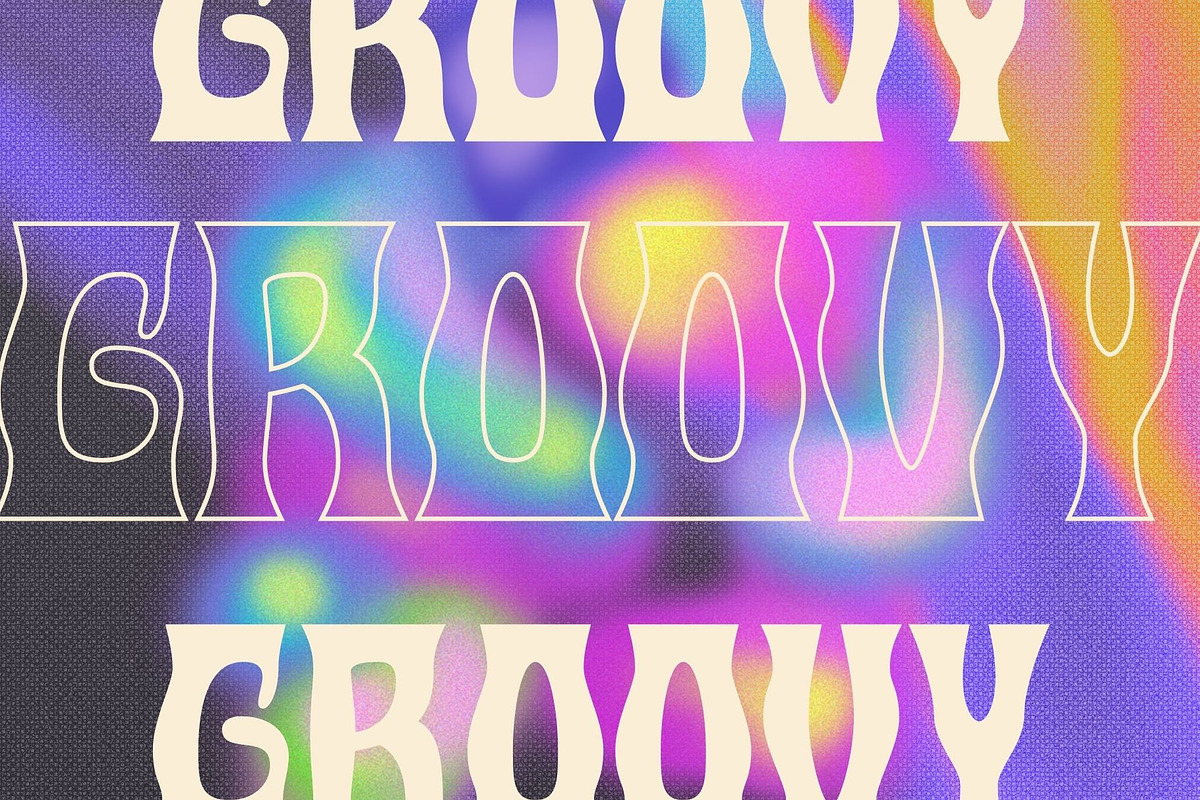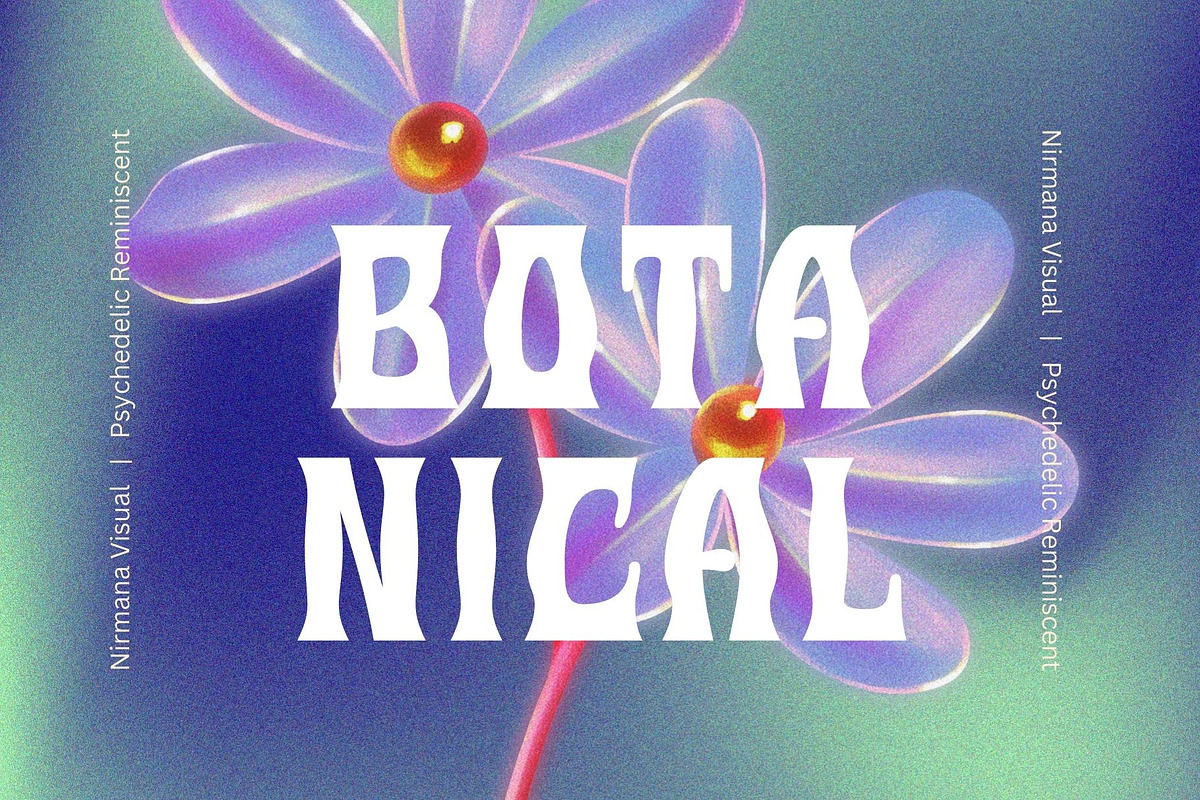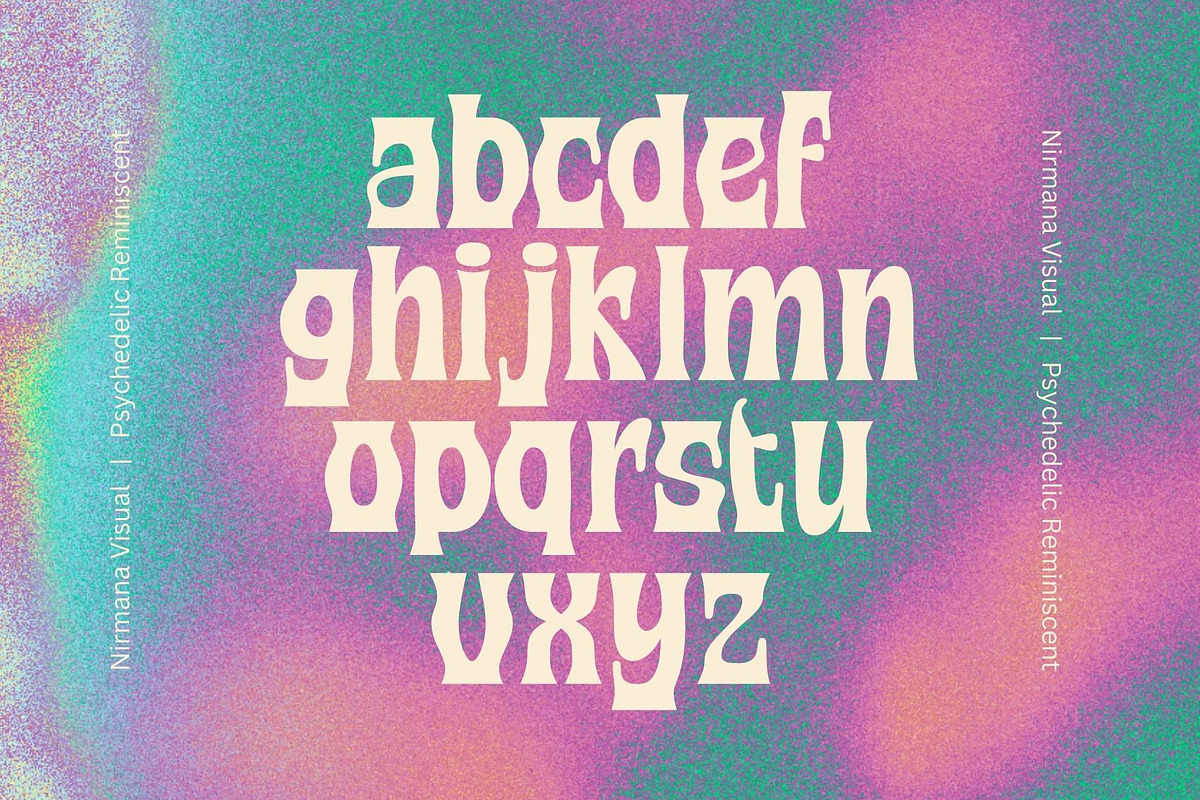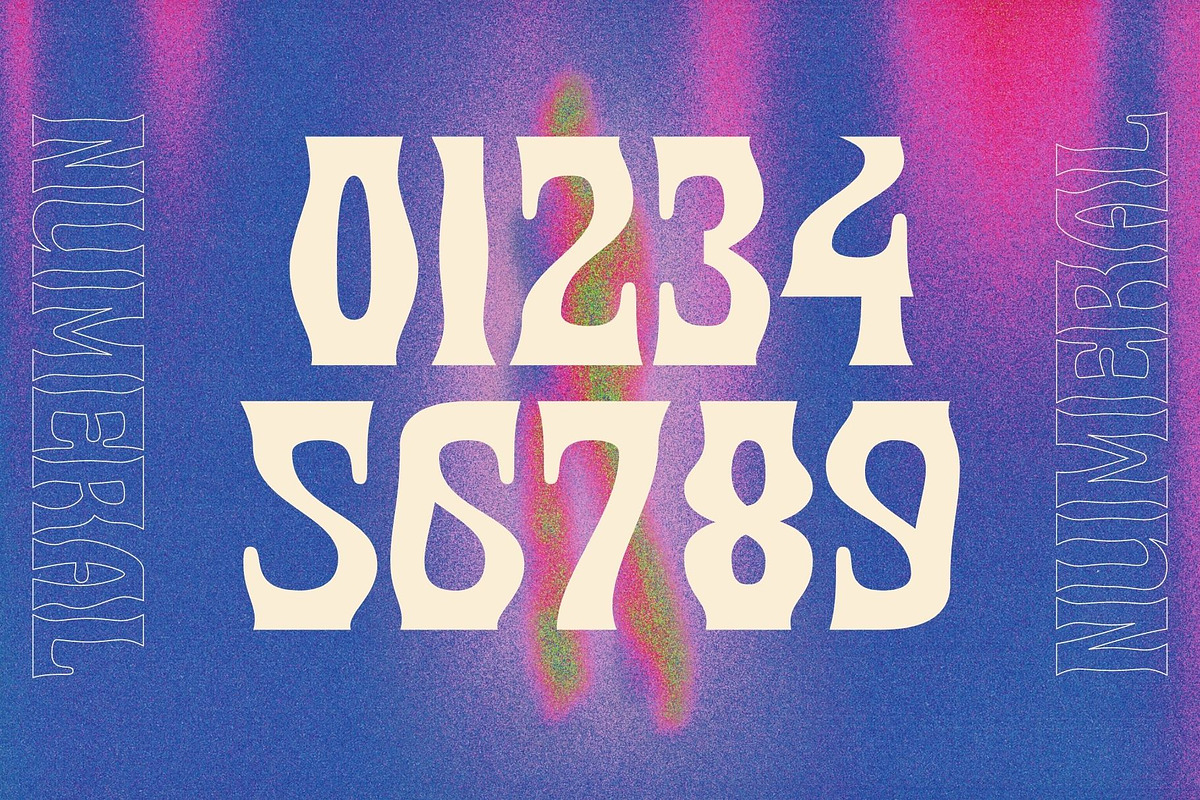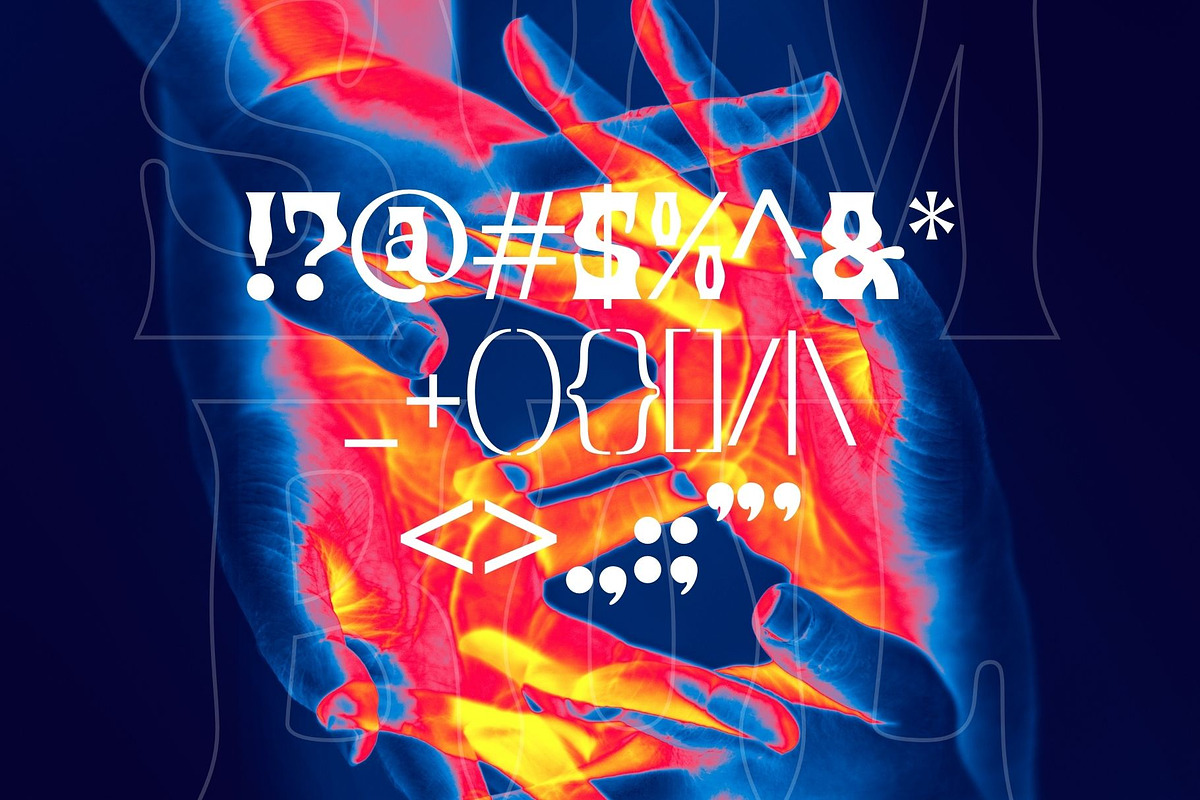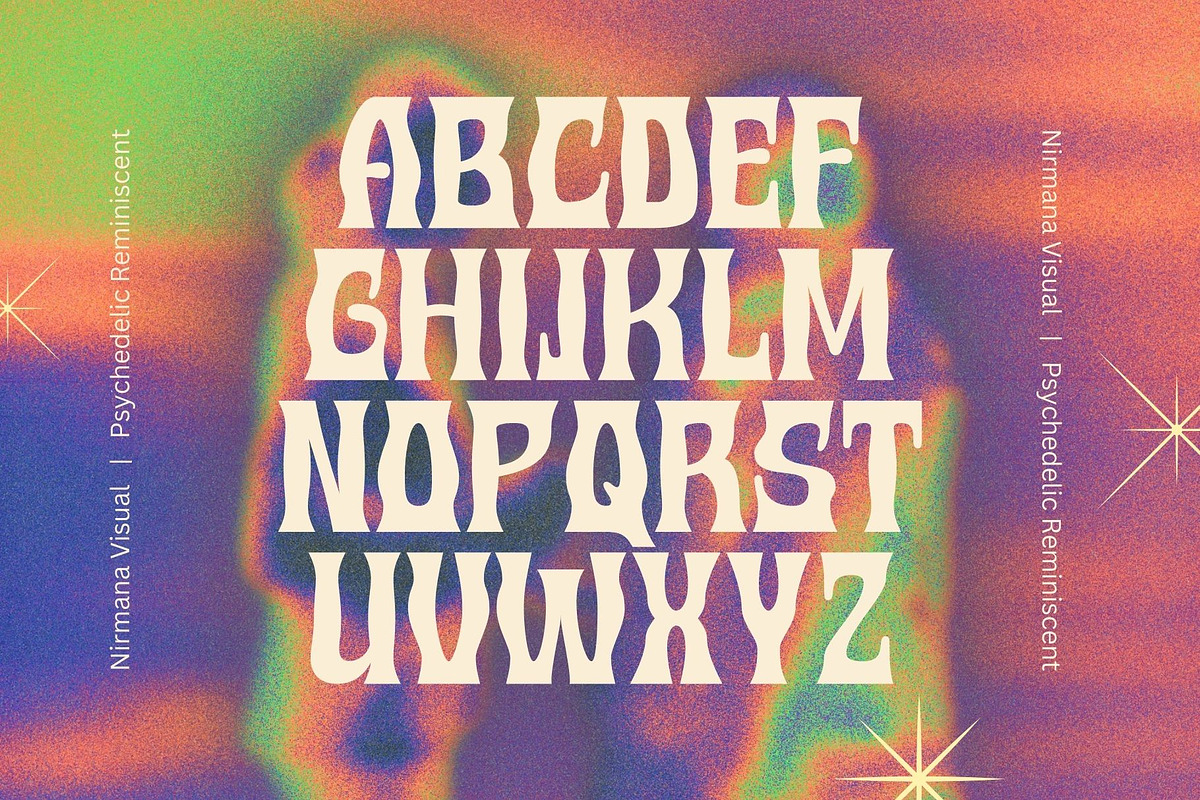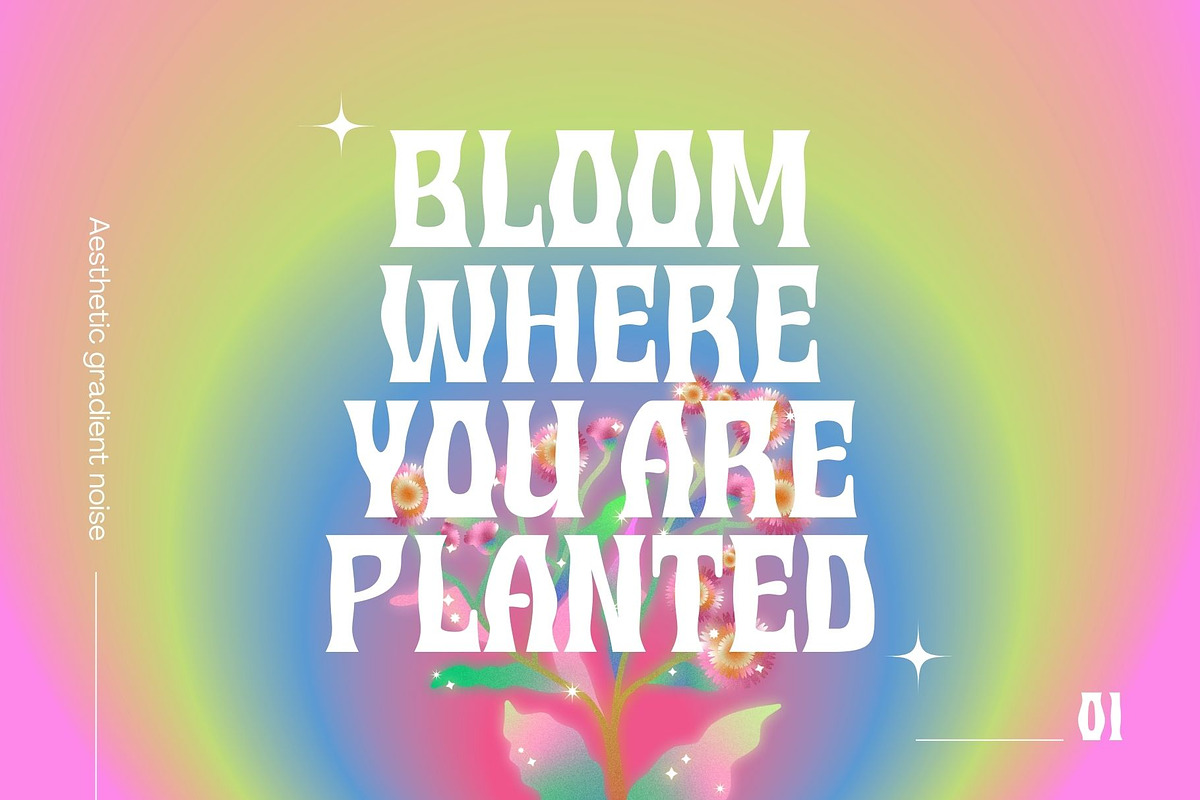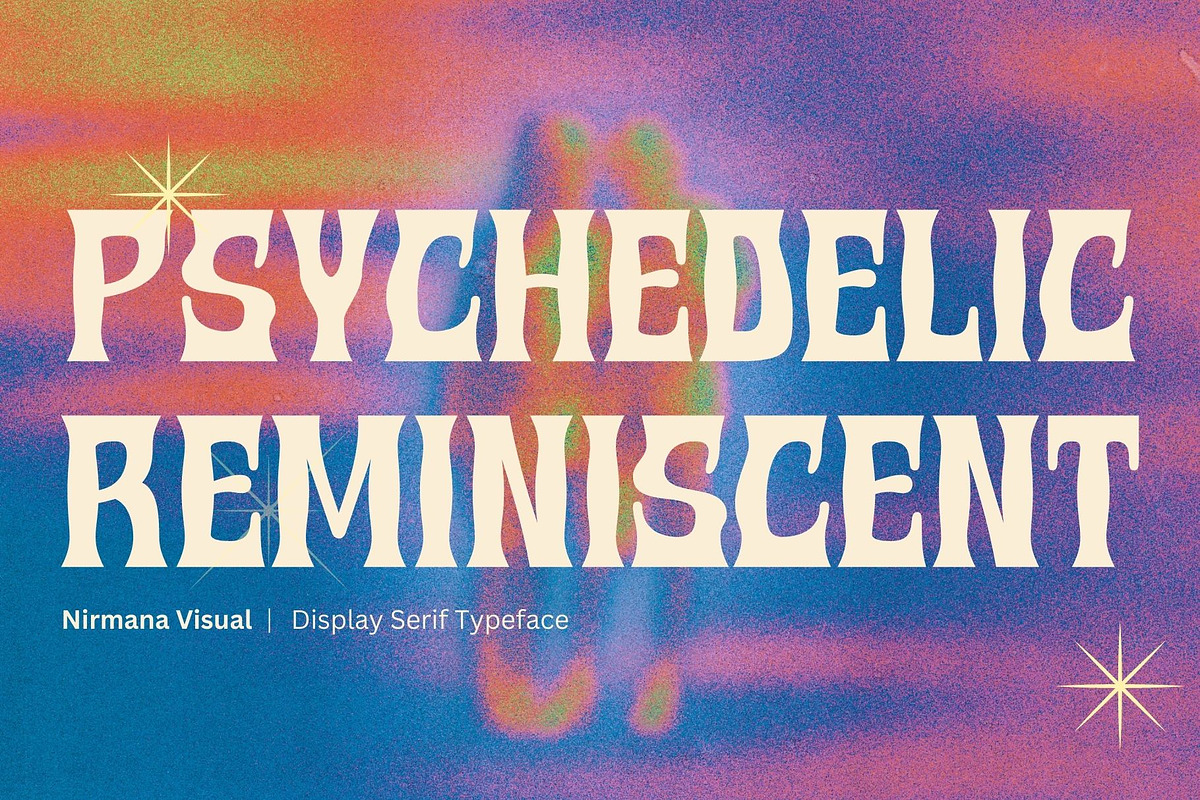
Psychedelic Reminiscent
Psychedelic Reminiscent - Psychedelic Serif Display.
Psychedelic Reminiscent offers beautiful typographic harmony for a diversity of design projects, including logos & branding, social media posts, advertisements & product designs.